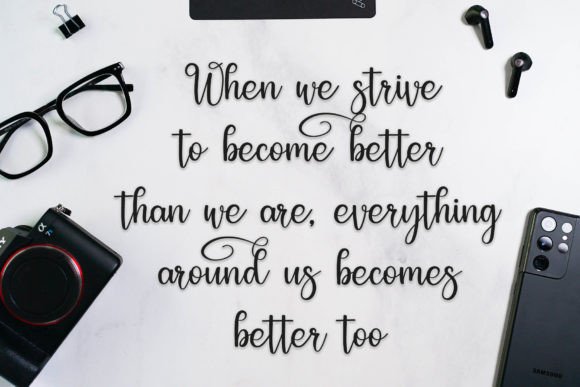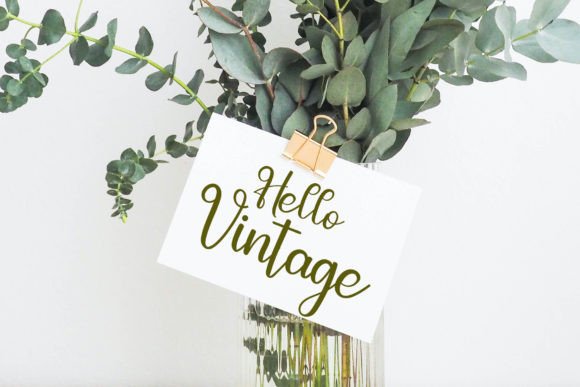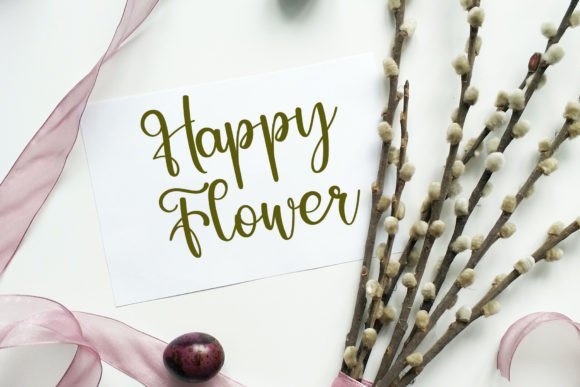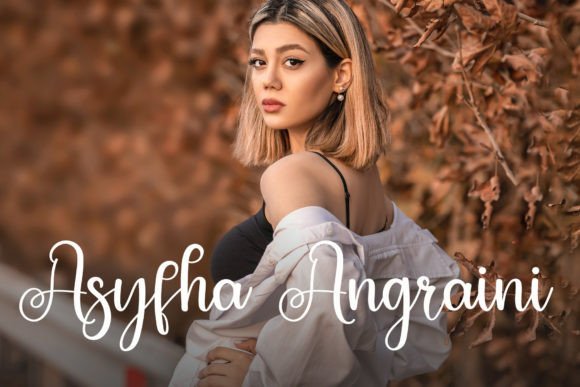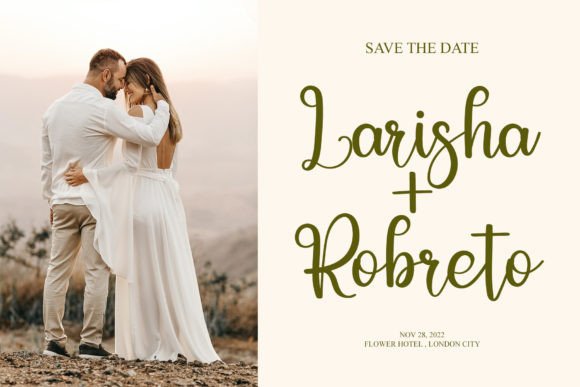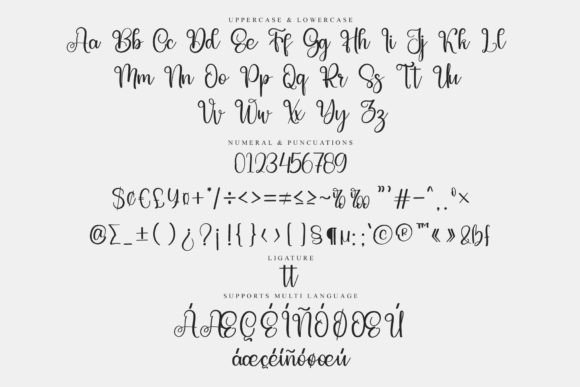
Introduction to Longlife Font
Have you ever stared at a blank canvas, waiting for the perfect font to bring your creative vision to life? That’s exactly what happened to me last weekend while working on a new design project. I wanted to create a beautiful Instagram post, but I just couldn’t find the right font to match my idea. That’s when I stumbled upon Longlife Font, a magical handwritten font that instantly elevated my design to the next level.
As a designer, you know how crucial it is to have access to high-quality design resources like Longlife Font. This font is not only a valuable addition to your design arsenal but also a game-changer for any creative project. With its elegant and sophisticated look, Longlife Font is perfect for designers who want to add a touch of sophistication to their designs.
Key Features of Longlife Font
• High-quality design resource ideal for creative projects
• Unique, modern design that can add a touch of sophistication to any project
Honest Review: Longlife Font
I recently stumbled upon the Longlife Font, a high-quality design resource that caught my attention. As a designer, I’m always on the lookout for unique and creative fonts to elevate my projects.
What works well: ✨ The Longlife Font offers a clean and modern aesthetic, making it perfect for a wide range of creative projects. Its transparent background allows for seamless integration with any design, and the free download is a major plus. The font is also highly versatile, suitable for both digital and print designs.
• Highly versatile
• Modern and clean aesthetic
• Transparent background
However, there are some limitations to consider: ⚠️ The font may not be suitable for projects that require a more rustic or vintage feel. Additionally, the font’s legibility can be affected by the size and spacing of the text.
Overall, I’m impressed with the Longlife Font. Its high-quality design and free download make it a valuable resource for designers. While it may have some limitations, it’s a great addition to any design library.
The Longlife Font is a high-quality design resource ideal for creative projects. It features a clean and modern aesthetic, perfect for various applications.
Use the Longlife Font on a transparent background to create a clean and minimalist design. Experiment with different font sizes and colors to achieve the desired look.
The Longlife Font is suitable for various design projects, including business cards, brochures, and social media graphics. Its clean and modern aesthetic makes it perfect for creative and professional applications.